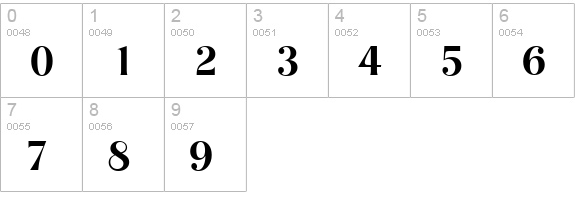
NashvilleSerial-Medium-Regular is a balanced, medium-weight variant in the NashvilleSerial typeface family \xE2\x80\x94 well suited to sub-headlines, navigation, and balanced editorial work.
NashvilleSerial-Medium-Regular font is a versatile and stylish typeface that exudes modernity and sophistication. With its clean lines and balanced proportions, this font is perfect for a wide range of design projects, from branding to editorial. The medium weight of the font strikes the perfect balance between impact and readability, making it ideal for both headlines and body text. What sets NashvilleSerial-Medium-Regular font apart is not only its sleek design but also the fact that it is available for free download at FontsMarket.com. This means that you can access this high-quality font without any cost, making it a valuable addition to your font library. Whether you're a designer looking to elevate your projects or a business owner in need of a polished look for your branding, NashvilleSerial-Medium-Regular font is a versatile and accessible option that won't disappoint. Download it today and take your designs to the next level!